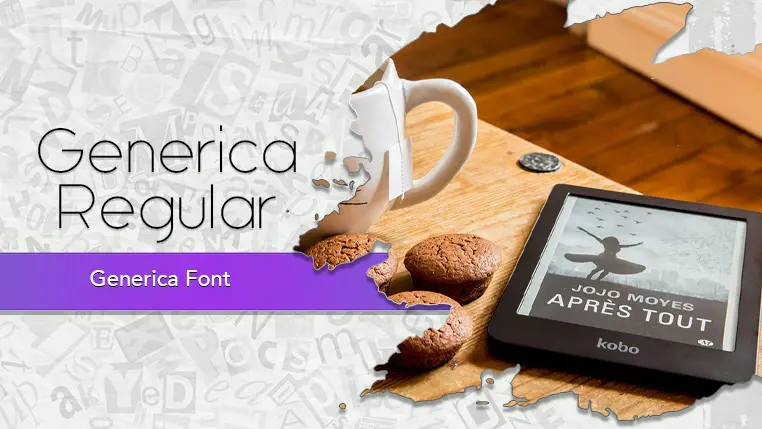
The Generica font family may be ideal for you if you enjoy working on an artistic design project. The lively, expressive look of this typeface, which was created by Michael Muranaka, makes it ideal for Its crisp and clean lines make it an excellent choice for modern company logos and brand identities, With its varying weights, Generica can create strong typographic hierarchy. The bolder weights are excellent for impactful headlines, while lighter weights offer a more refined touch. Its inherent legibility makes it suitable for paragraphs and longer blocks of text, especially in digital formats (websites, e-books, apps) where clear readability is crucial. and other light-hearted visual projects.
Regular, Bold are the two primary font styles of the Generica font family. You may build dynamic, visually appealing text layouts with the distinct flair that each style offers. With crisp, readable lines and a relaxed tone.